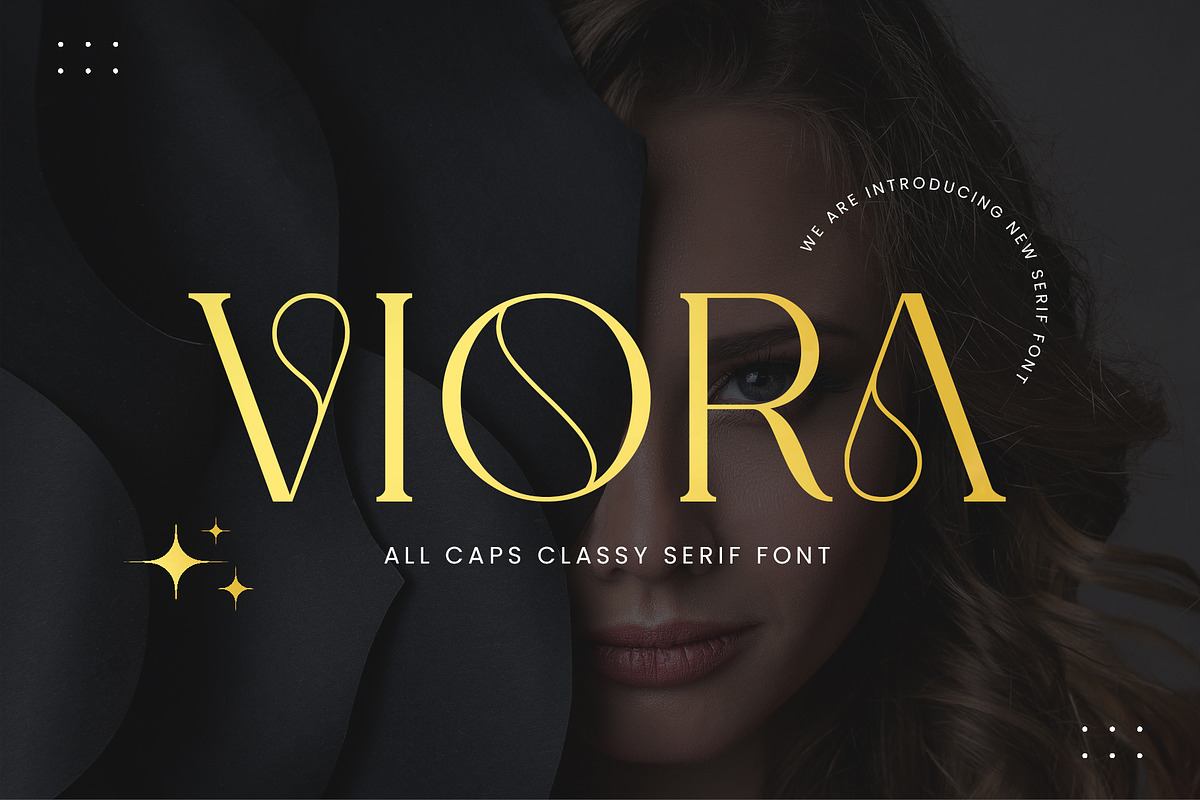
Viora All Caps Serif Font Free Download
Viora All Caps Serif Font Free Download is a bold and elegant typeface designed to make a sophisticated impact. With its sharp serifs, clean lines, and all-caps styling, Viora is perfect for luxury branding, editorial titles, product packaging, logo design, and high-fashion advertising.
This font combines classic serif structure with a modern edge, delivering a refined yet powerful look. Whether you're working on a magazine cover, a designer label, or a bold brand identity, Viora offers timeless style and commanding presence.